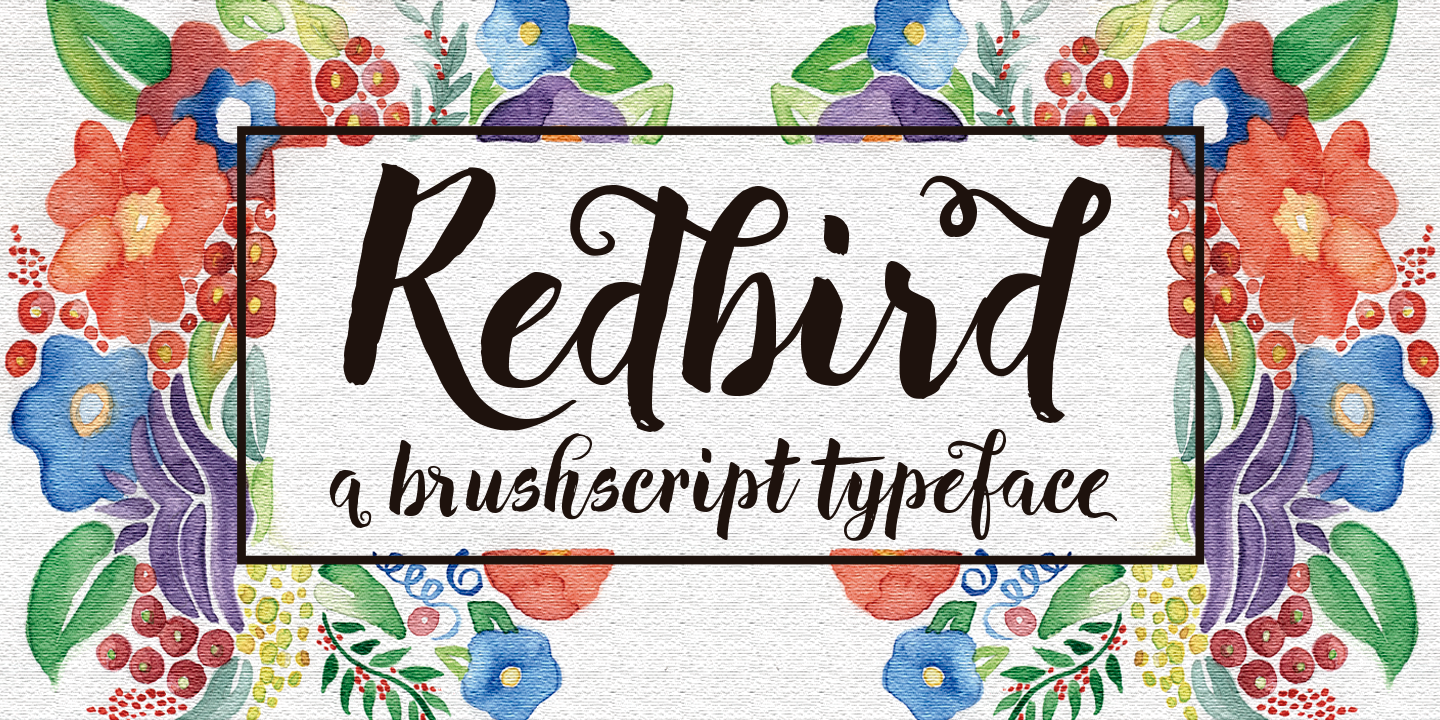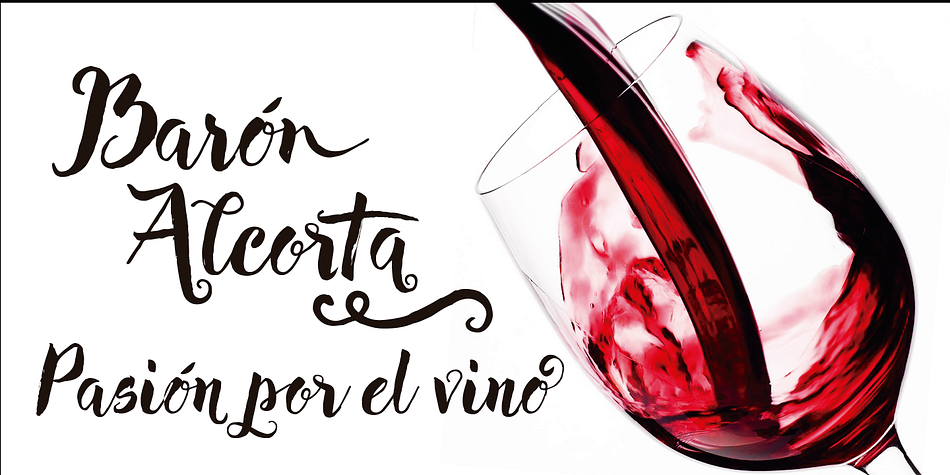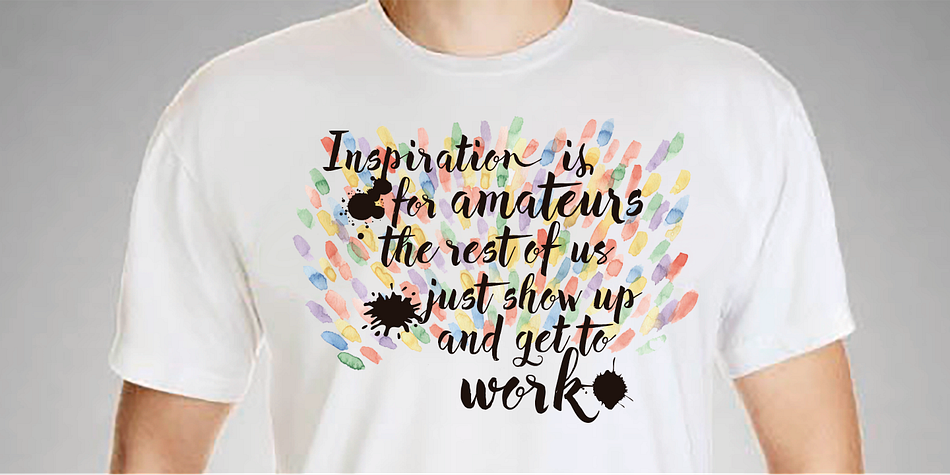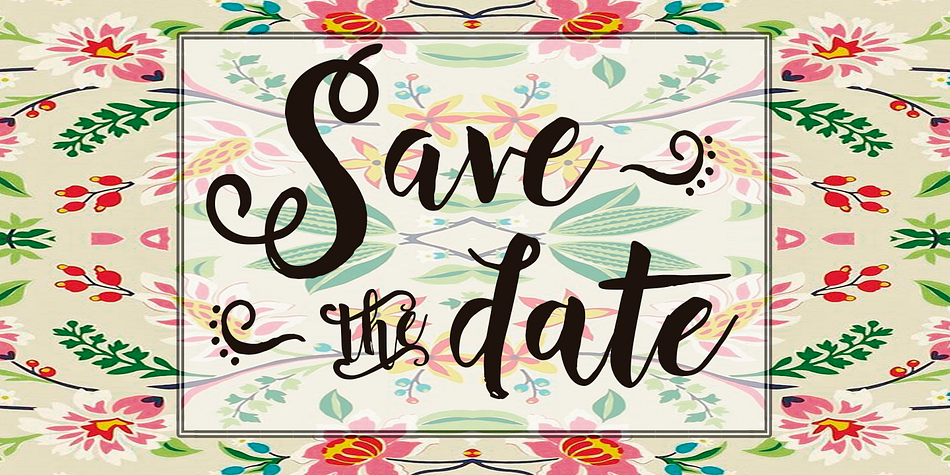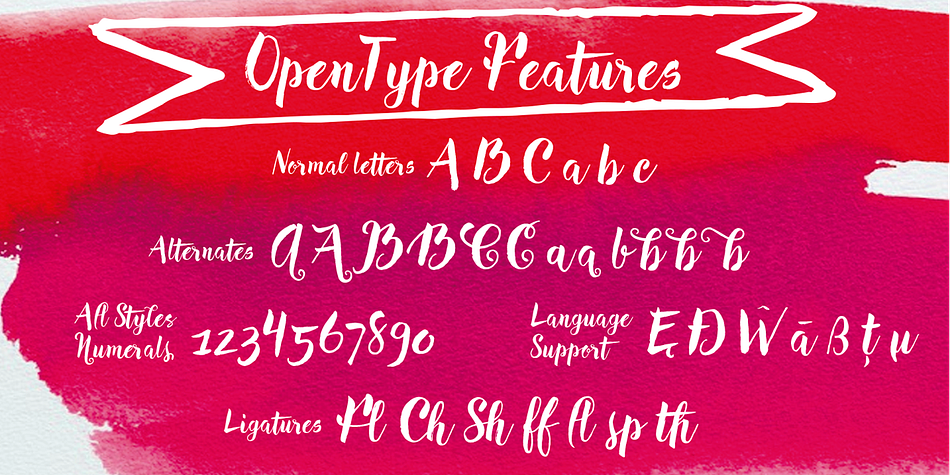
Redbird is a brush script font published by Eurotypo.
Redbird is an organic, hand-painted look typeface. Rough edges and imperfect lines give to this brush font a unique and trendy look. All glyphs have been carefully painted giving your words a wonderful flow. Fat and thin stroke in this font impresses the harmony.
Redbird font contains 584 glyphs, with inky lines, and “perfect or imperfect” painted edges, including a few extra character alternates, swashes and ligatures for a genuine hand-lettered effect.
This font includes OpenType features that may only be accessible via OpenType-aware applications, a Central European language support.
Bonus: 60 useful ornaments and a lot of catchwords that you use for the most demanding design project!